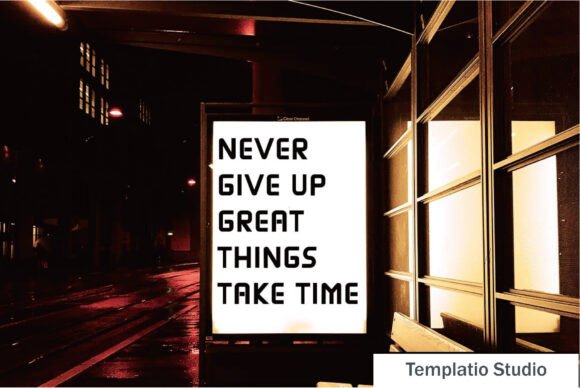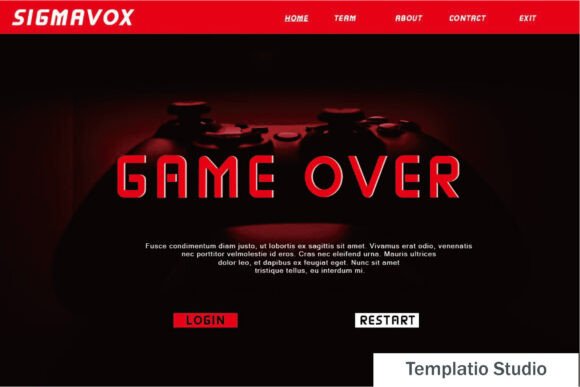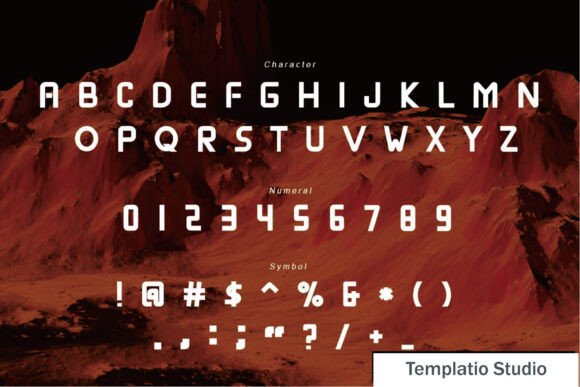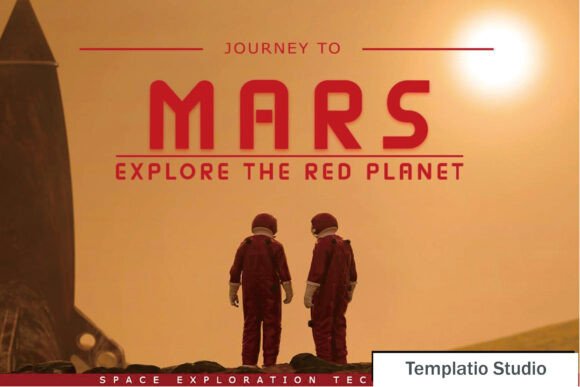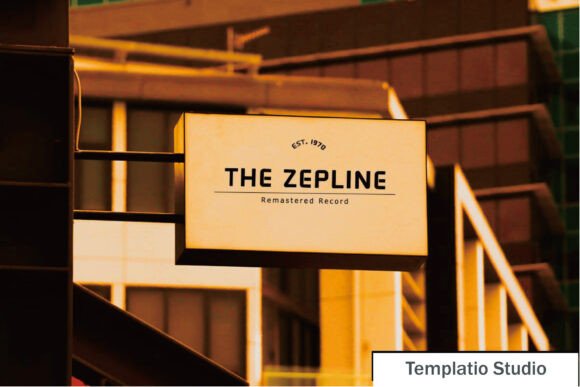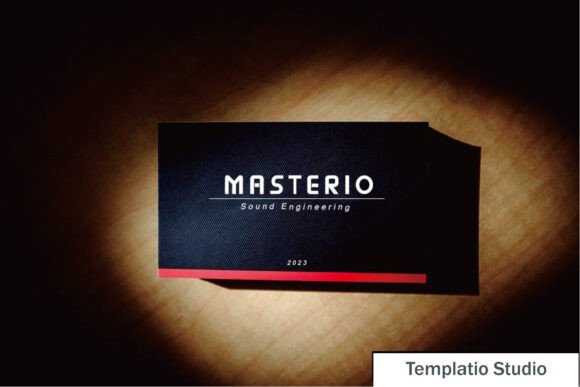
Introduction to Megavox Font
Megavox is a sans based font with unique lowercase that will make your design look futuristic and modern.
| 👤 Author | Templatiostudio |
Key Features of Megavox Font
Why Choose Megavox Font?
Megavox Font offers exceptional quality and versatility, making it a valuable addition to your design toolkit. Whether you’re creating for personal projects or commercial use, Megavox Font delivers professional results.